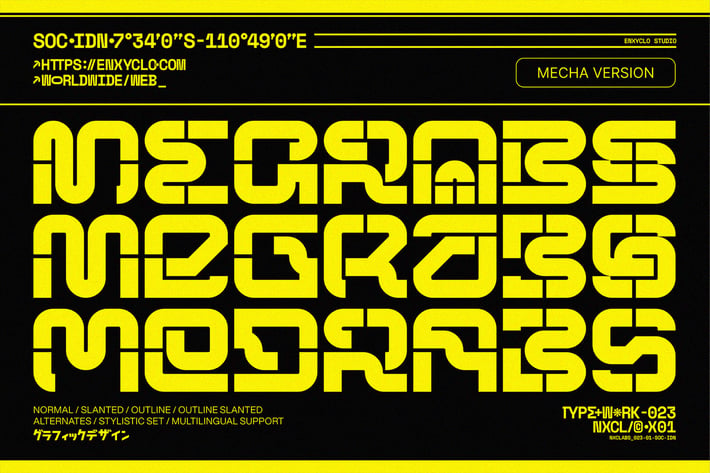
NCL Megrabs Mecha - Modern Bold Futuristic Font
NCL MEGRABS MECHA is the mecha version of the font family. It is the ultimate modern bold futuristic y2k cyberpunk mecha typeface inspired by industrial and mecha-robotics. This stunning and powerful font cuts through the noise, bringing a bold industrial edge to your designs. With its sleek and futuristic design, this font is perfect for any futuristic or cyberpunk design, album artwork, posters, headlines, and logotypes. Add this font to your design toolkit today and unleash the cutting-edge style of this versatile font.
- 4 Styles: Regular, Slanted, Outline, and Outline Slanted
- Contains 468 Glyphs for Each Style
- Stylistic Set 1-3
- Uppercase & Lowercase
- Numeral, Punctuation & Symbols